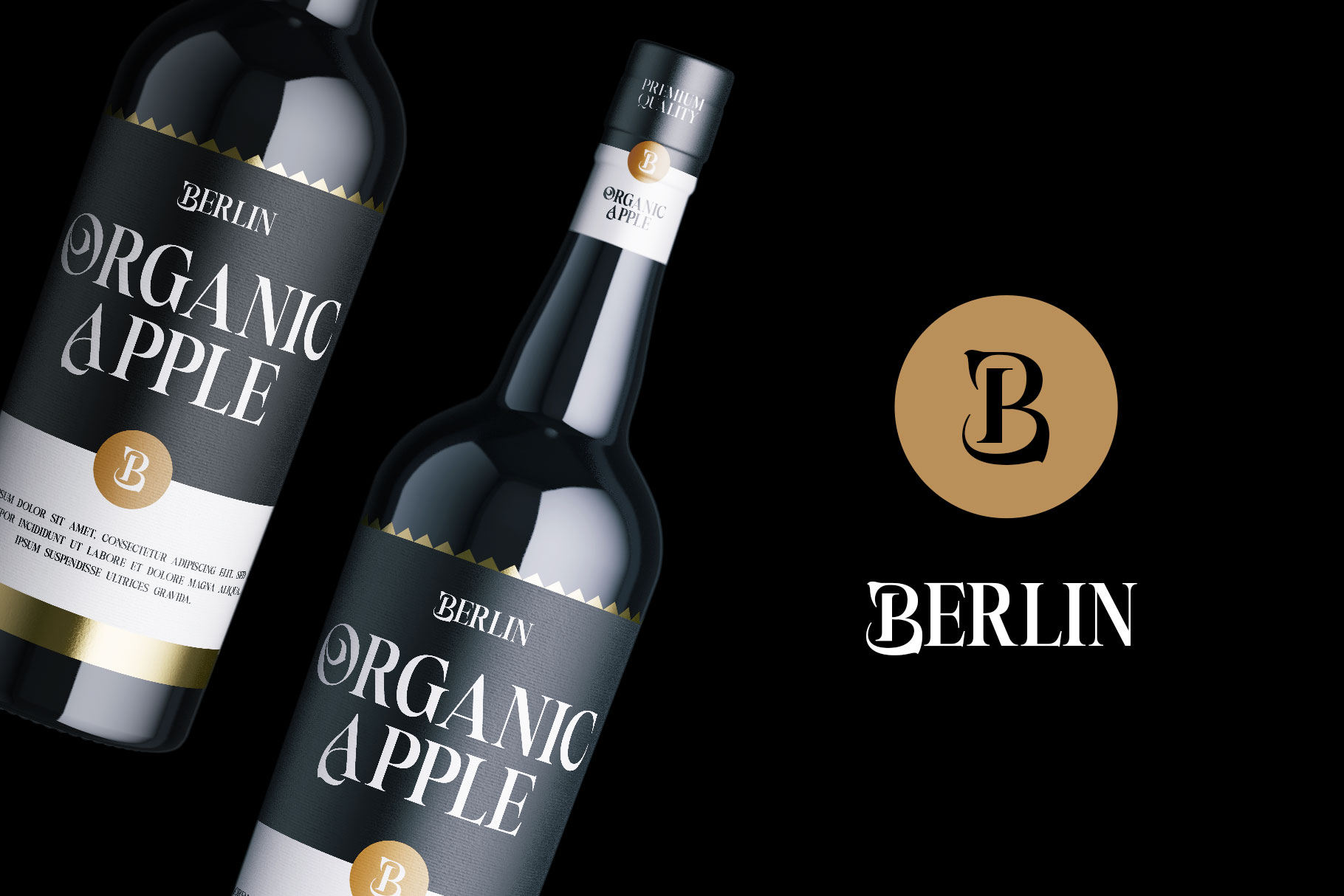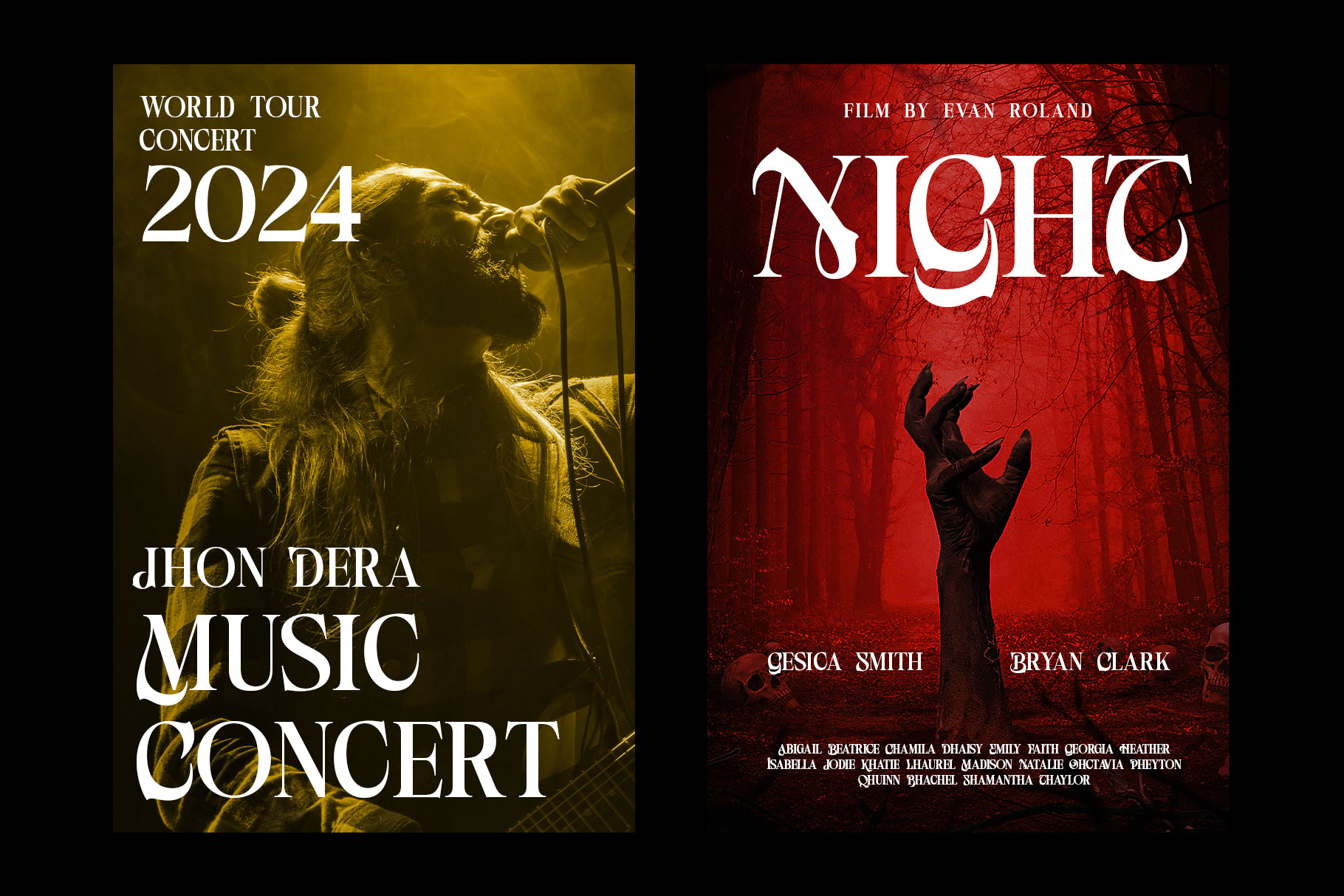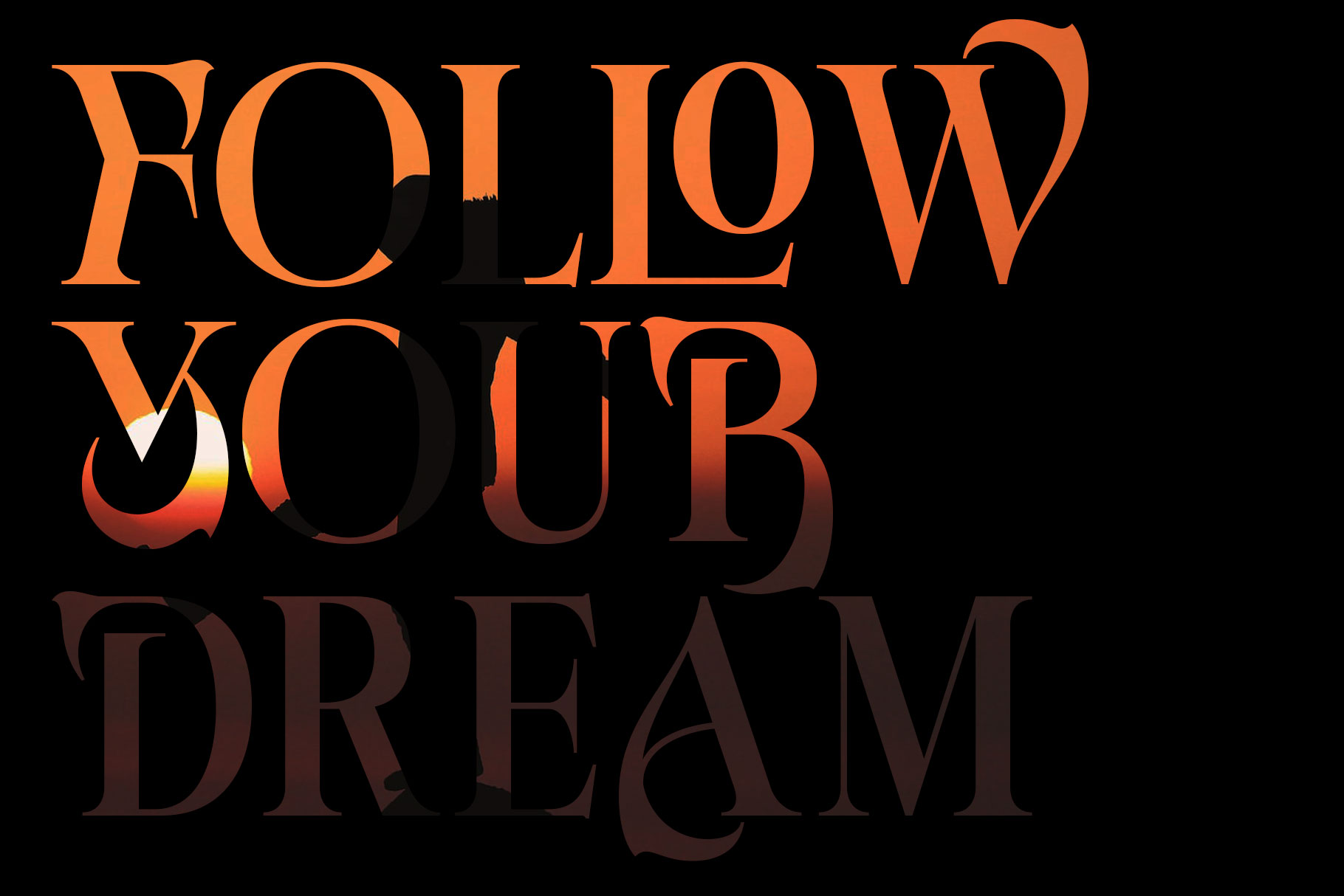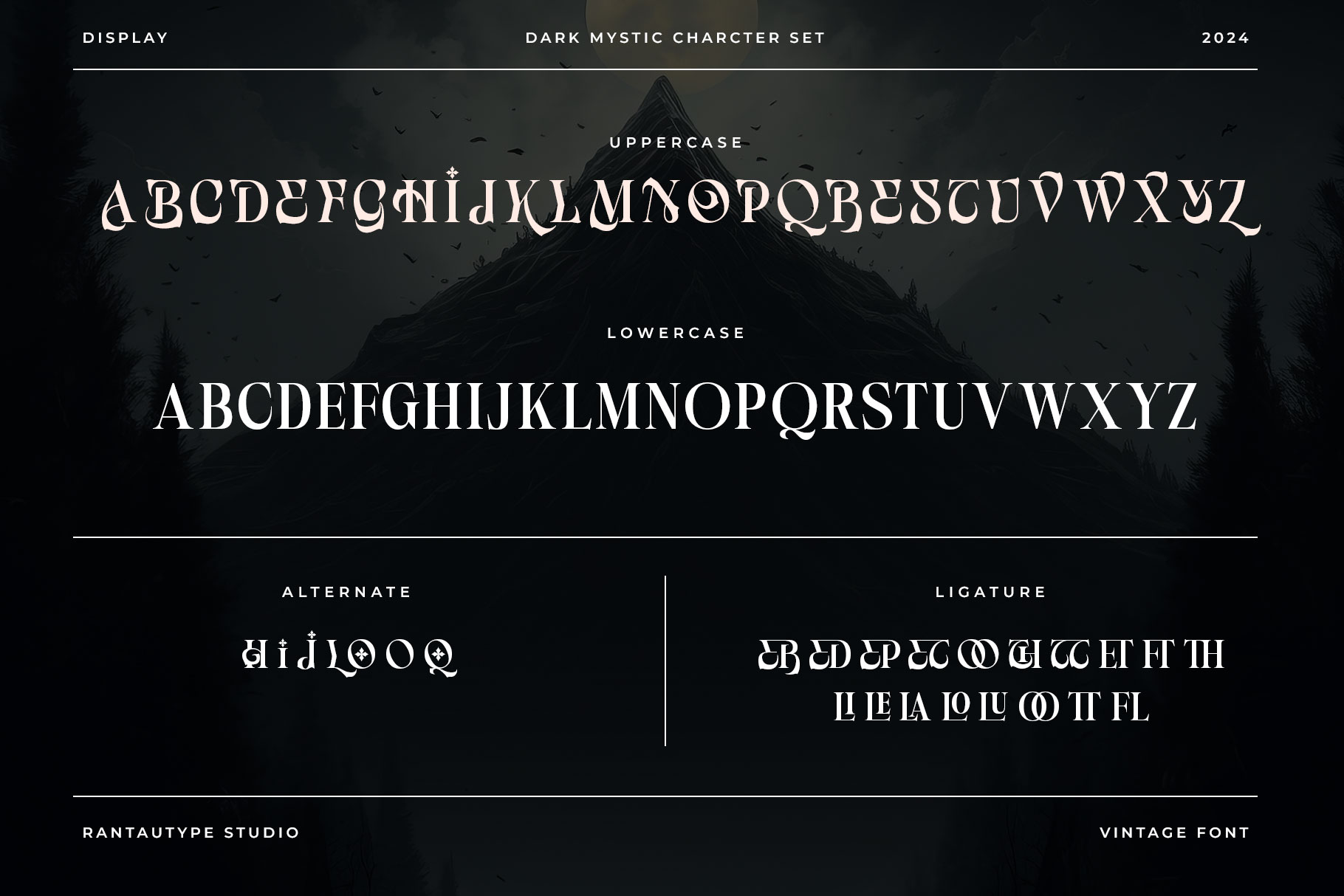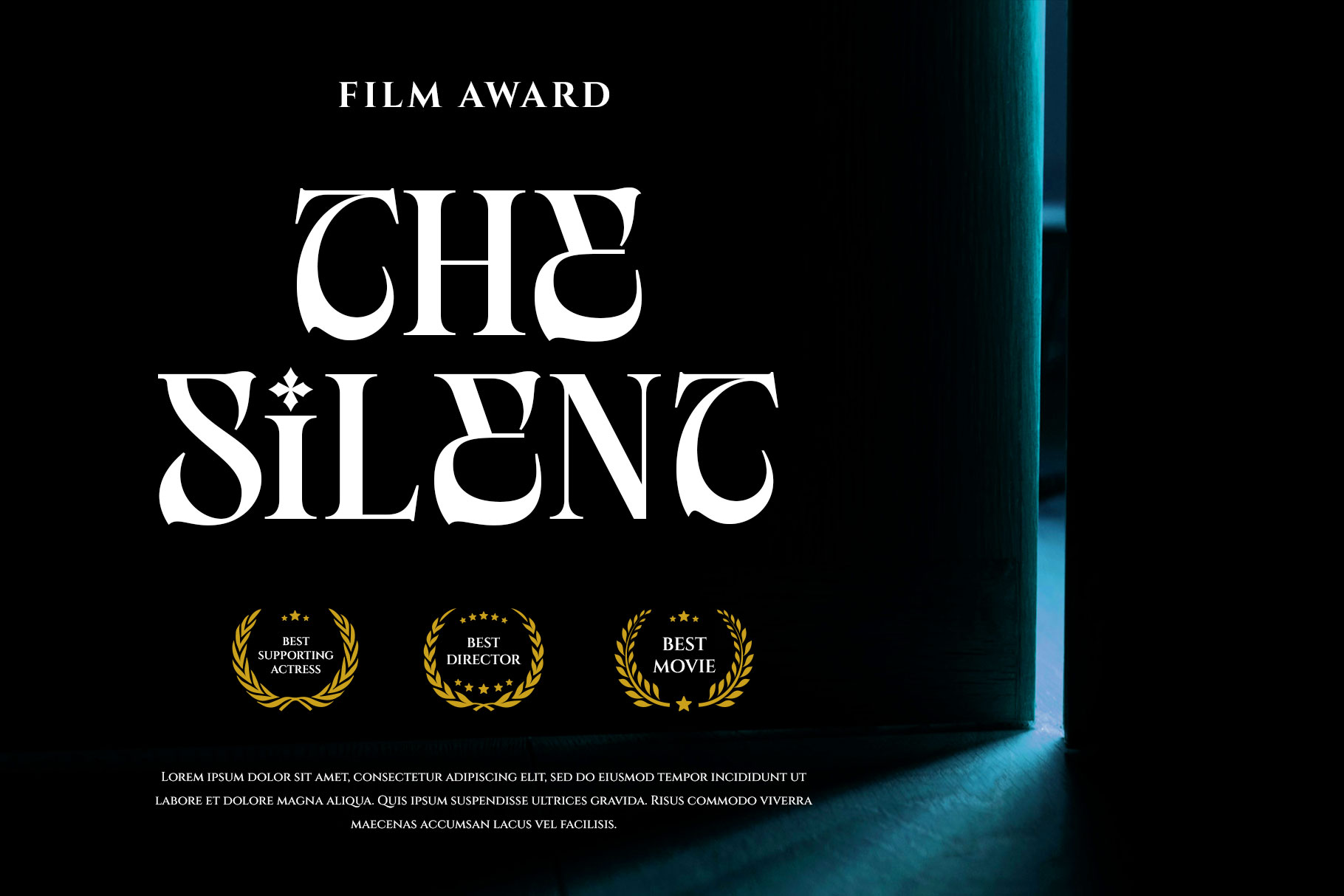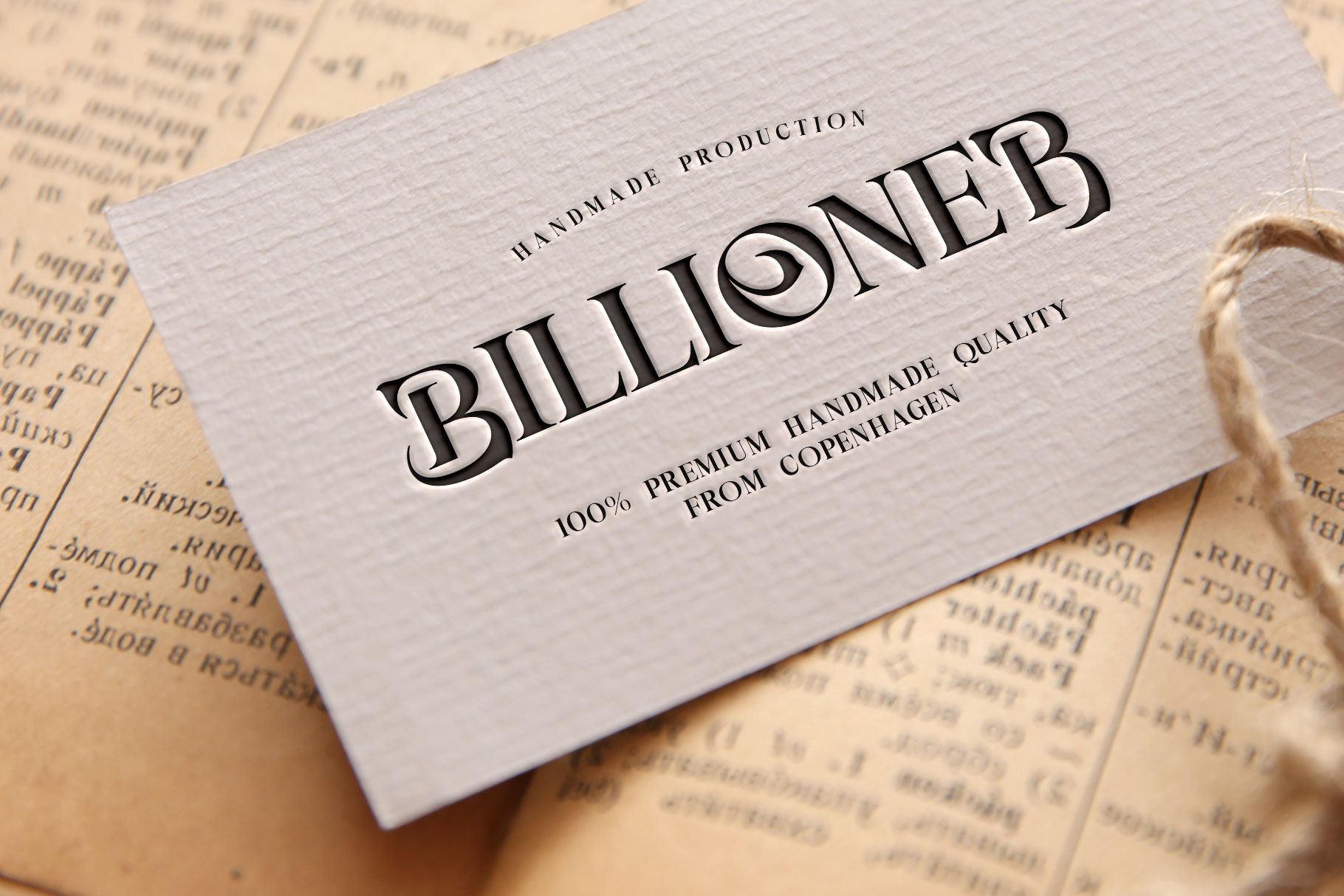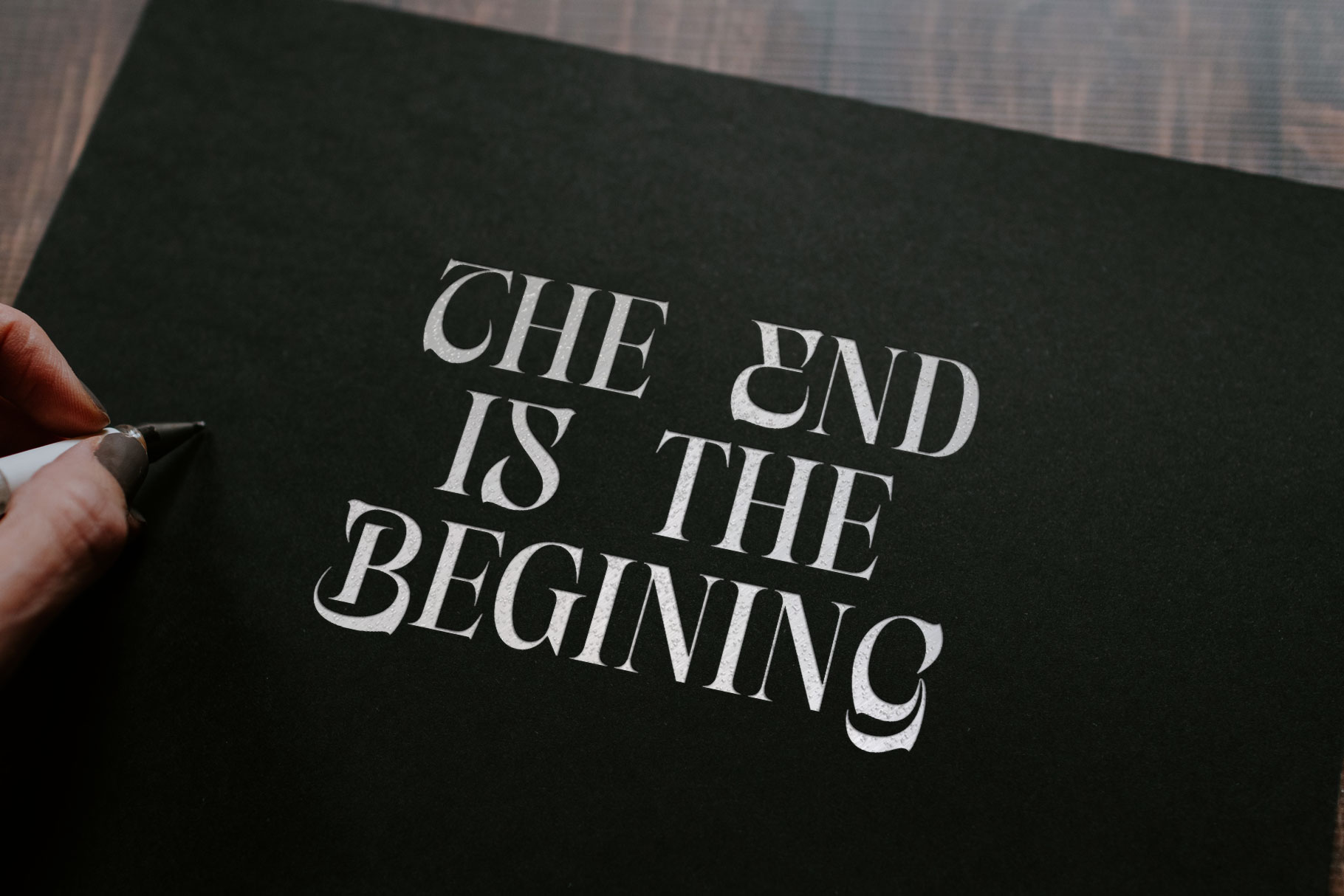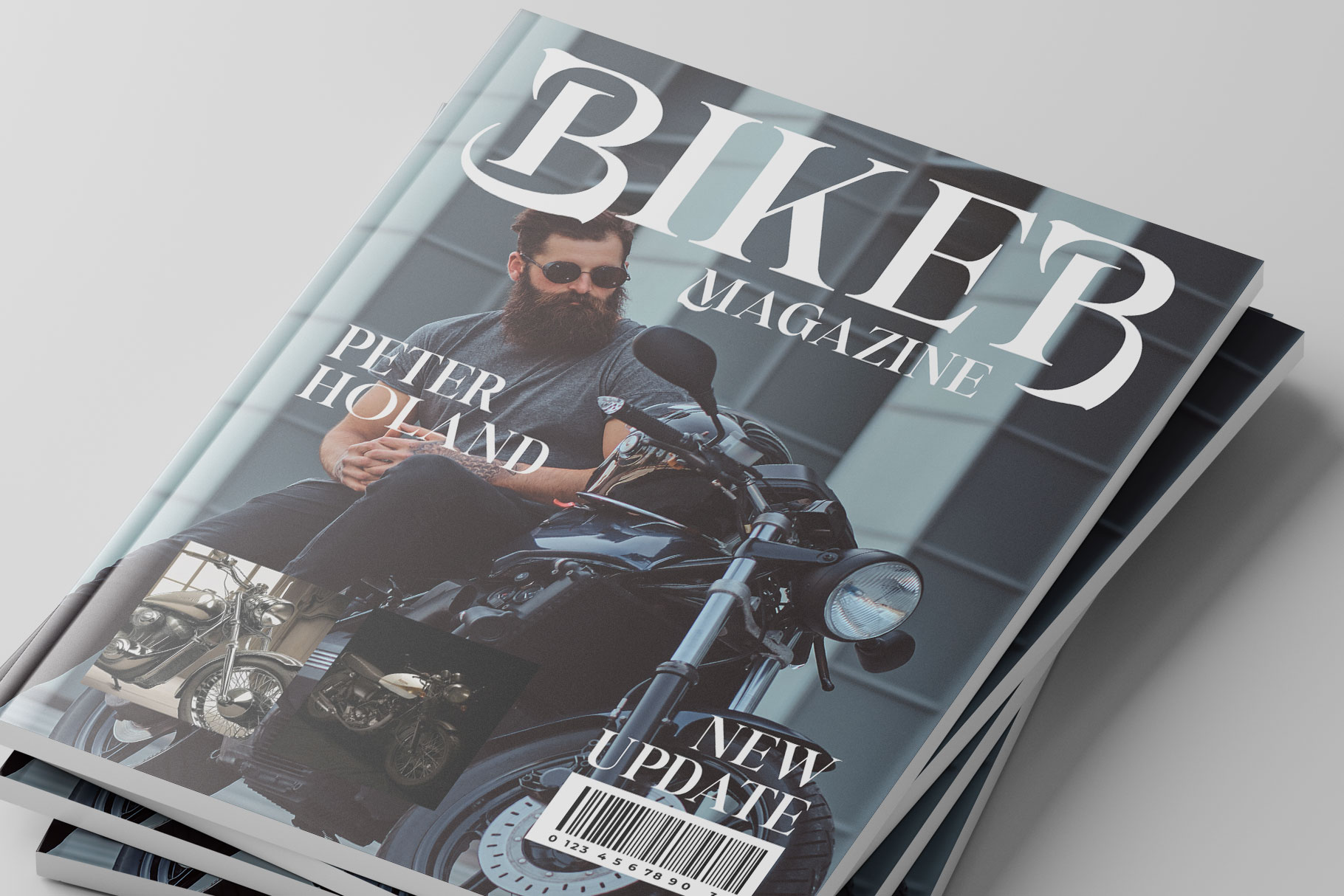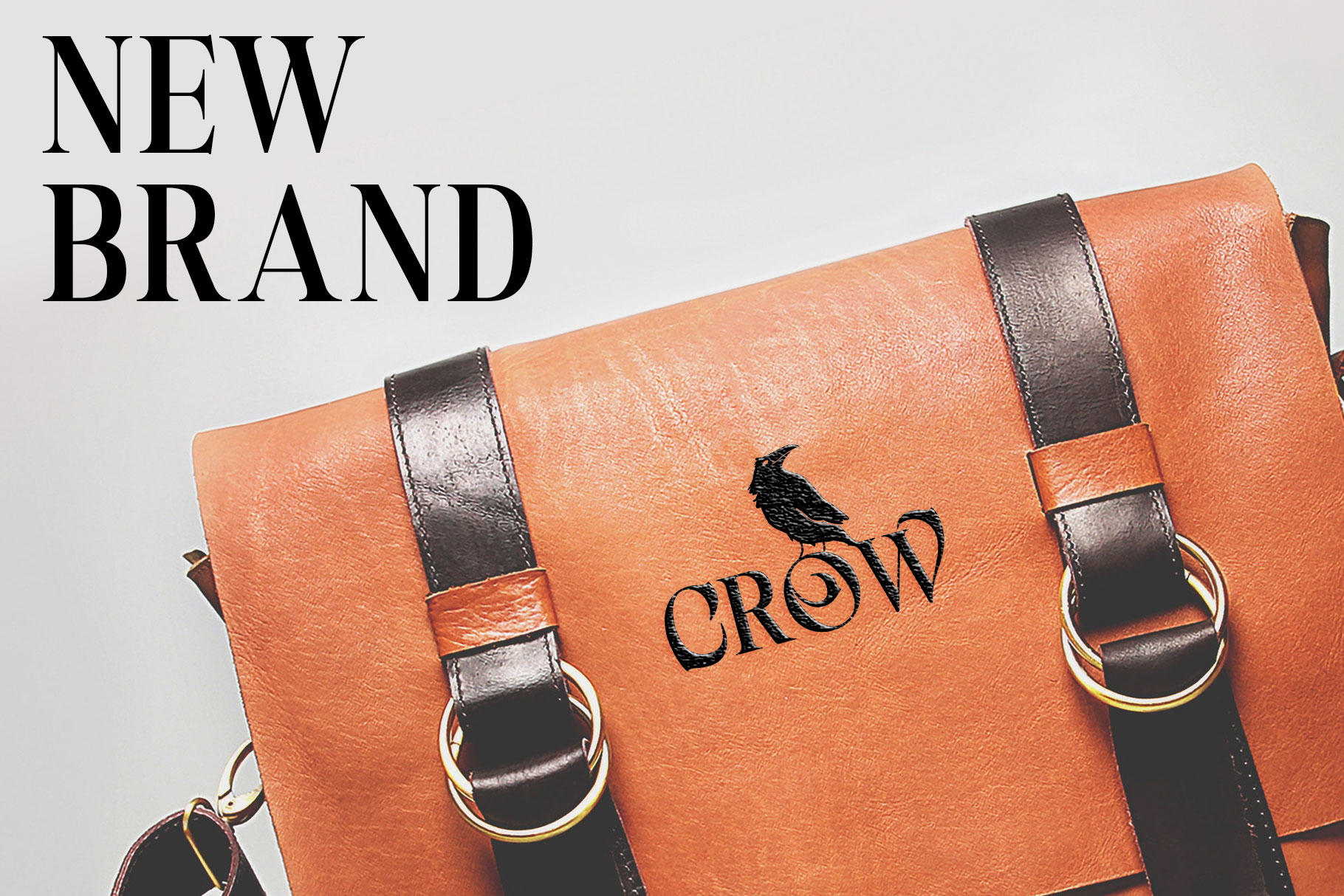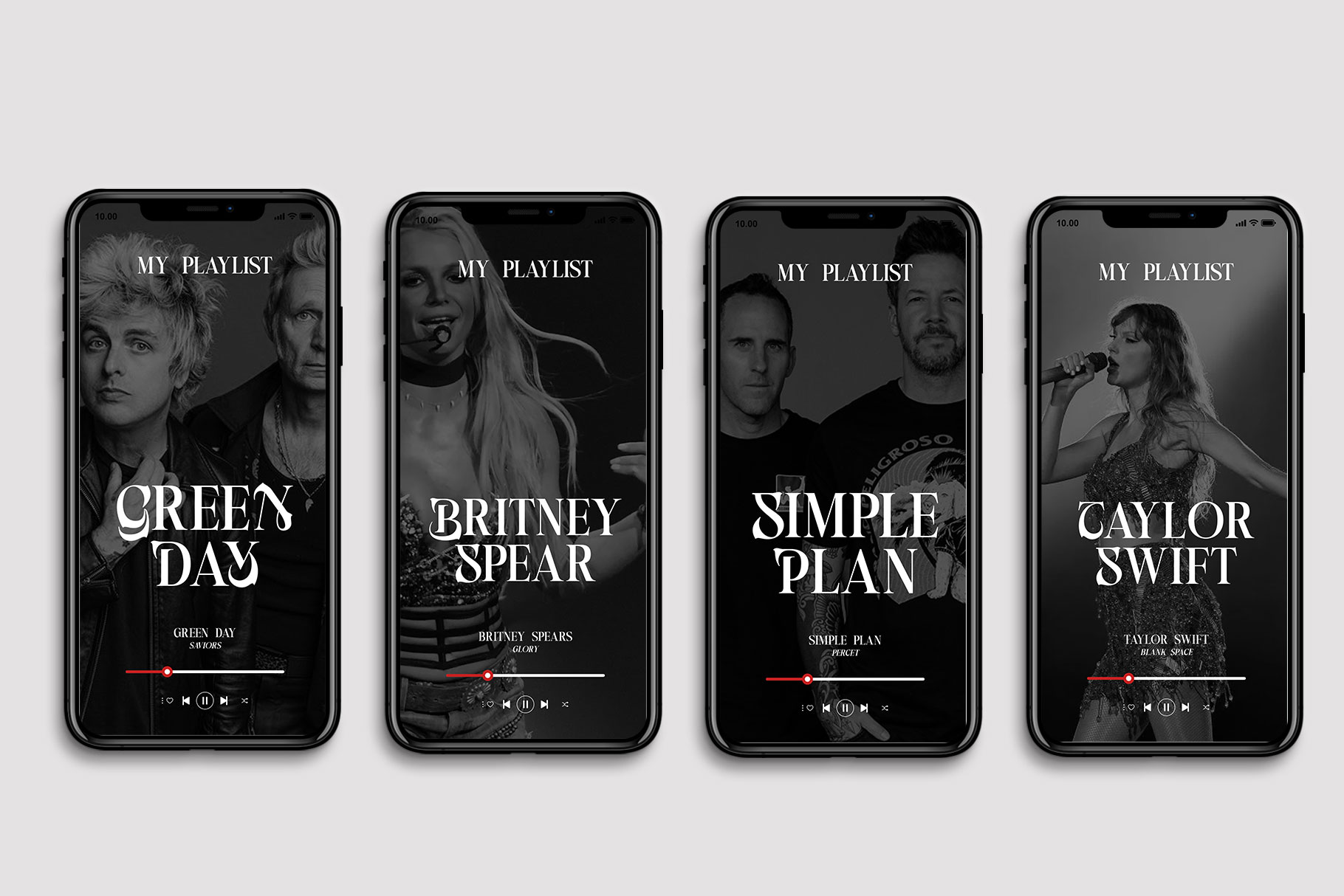
Dark Mystic Dark Serif Font
Dark Mystic is display serif font inspire from horror visual design. Dark Mystic bring of darkness design into a font with curve shape make it scary and sophisticated.
Dark Mystic is a perfectly choice for any creative endeavor such as logos, advertisements, stationery, branding project, display and magazine, invitation, headline, corporate brand, product design, label, business project and many other project with horror or dark touch.